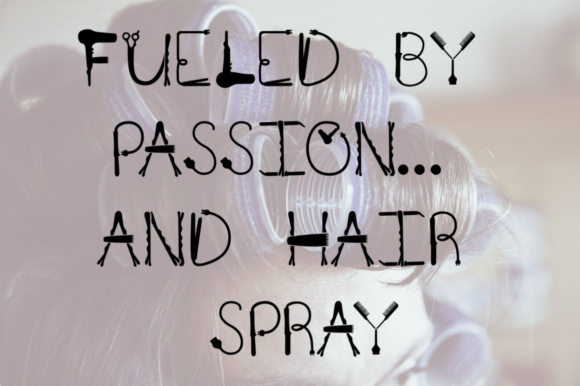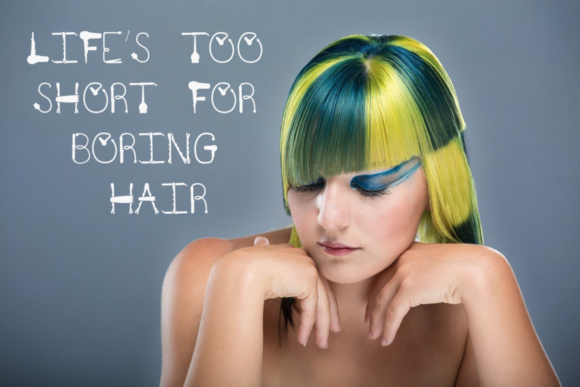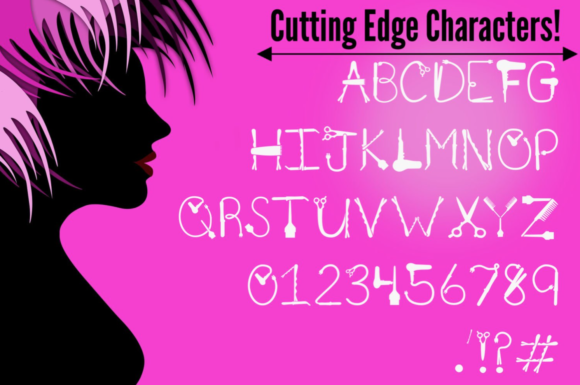
Introducing Hair Candy Sassy Font for Beauticians: The Perfect Gift for Your Stylist
Are you searching for a unique and thoughtful gift for your favorite hairstylist? Look no further! We’ve got just the thing to make your stylist feel special. Our Hair Candy Sassy Font for Beauticians is a fun and quirky font designed specifically for hairstylists, and it’s the perfect way to show your appreciation for their hard work and dedication.
A Font that’s a Cut Above the Rest
Our Hair Candy font is more than just a collection of letters and symbols. It’s a creative tool that’s packed with glyphs and characters that are relevant to the world of hairstyling. From scissors and combs to hair dryers and curling irons, our font includes all the right angles and symbols to help you create something truly special.
What’s Included in the Font
- Capital letters A-Z, perfect for creating bold and eye-catching designs
- Numbers 0-9, for adding a touch of realism to your creations
- Basic punctuation marks, including . ? ! #
And the best part? You don’t need to use all caps to unlock the font’s full potential. Our Hair Candy font is designed to be versatile and easy to use, so you can focus on creating something amazing.
With our Hair Candy Sassy Font for Beauticians, the possibilities are endless. You can use it to create:
- Custom gift tags and cards for your stylist
- Personalized hair accessories, such as clips and headbands
- Unique and eye-catching social media graphics
- Customizable posters and flyers for your stylist’s salon
Whether you’re a designer, crafter, or simply someone who loves to get creative, our Hair Candy font is the perfect tool for you. It’s fun, quirky, and sure to bring a smile to your stylist’s face.
Why Choose Hair Candy Sassy Font?
So why choose our Hair Candy Sassy Font for Beauticians? Here are just a few reasons:
- Unique and exclusive design, perfect for hairstylists
- Packed with relevant glyphs and characters
- Perfect for creating custom gifts and personalized items
At the end of the day, our Hair Candy Sassy Font for Beauticians is more than just a font – it’s a way to show your appreciation for the hardworking stylists in your life. So why wait? Get creative and show your stylist just how much you care.
Get Ready to Unleash Your Creativity
We’re excited to see what you’ll create with our Hair Candy Sassy Font for Beauticians! Whether you’re a seasoned designer or just starting out, our font is the perfect tool for anyone looking to add a touch of personality and whimsy to their designs.
So go ahead, get creative, and show your stylist just how much you care. With our Hair Candy font, you can create something truly special and unique – a gift that will be treasured for years to come.